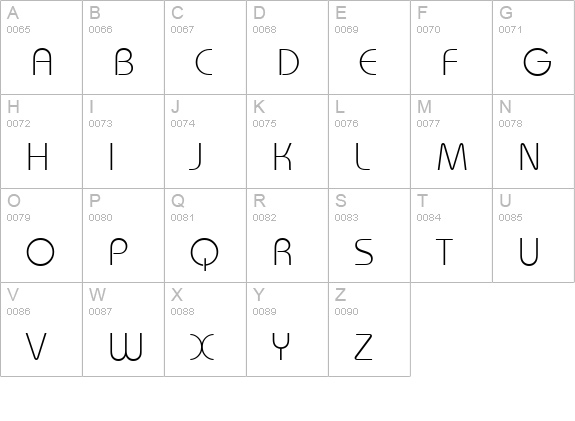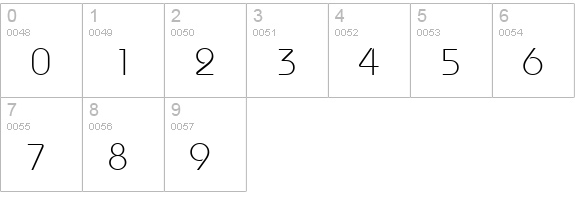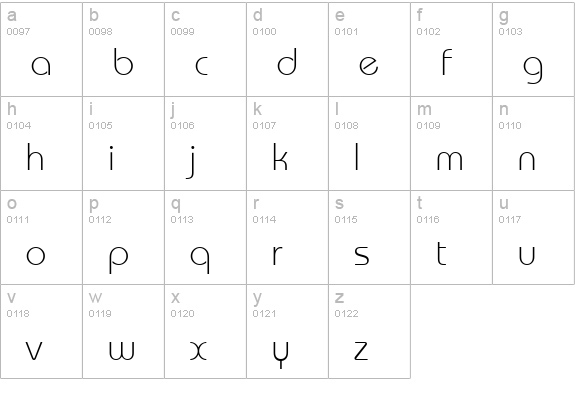
Dessau-Light-Regular Font Details
Dessau-Light-Regular is a refined, elegant variant in the Dessau typeface family \xE2\x80\x94 well suited to elegant body text, refined sub-headings, and luxury branding.
Dessau-Light-Regular is a stylish and modern font that exudes elegance and sophistication. With its clean lines and sleek design, this font is perfect for a wide range of projects, from branding and logos to invitations and posters. The light weight of this font gives it a delicate and airy feel, making it ideal for adding a touch of refinement to any design. This font is not only visually appealing but also highly versatile, making it suitable for both print and digital applications. Whether you're working on a professional project or a personal creative endeavor, Dessau-Light-Regular is sure to make a lasting impression. Best of all, Dessau-Light-Regular is available for free download at FontsMarket.com. So go ahead and add this stunning font to your collection today and take your designs to the next level!